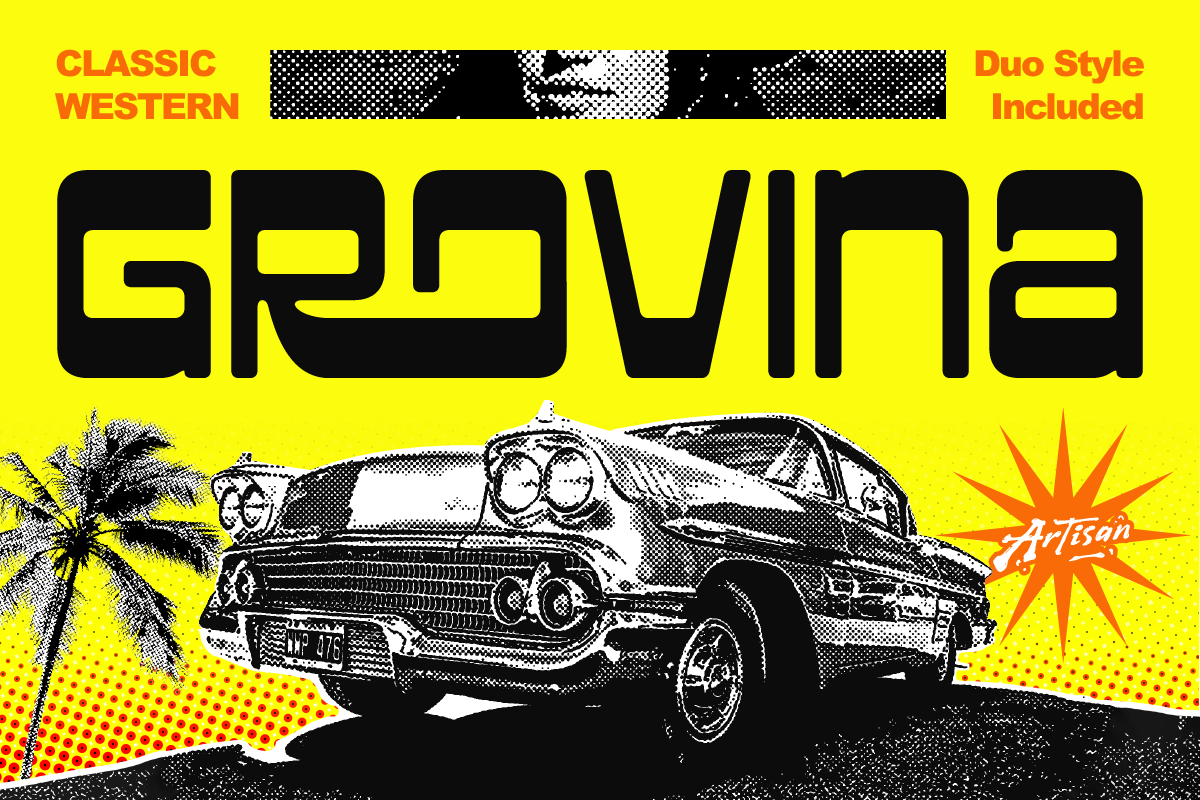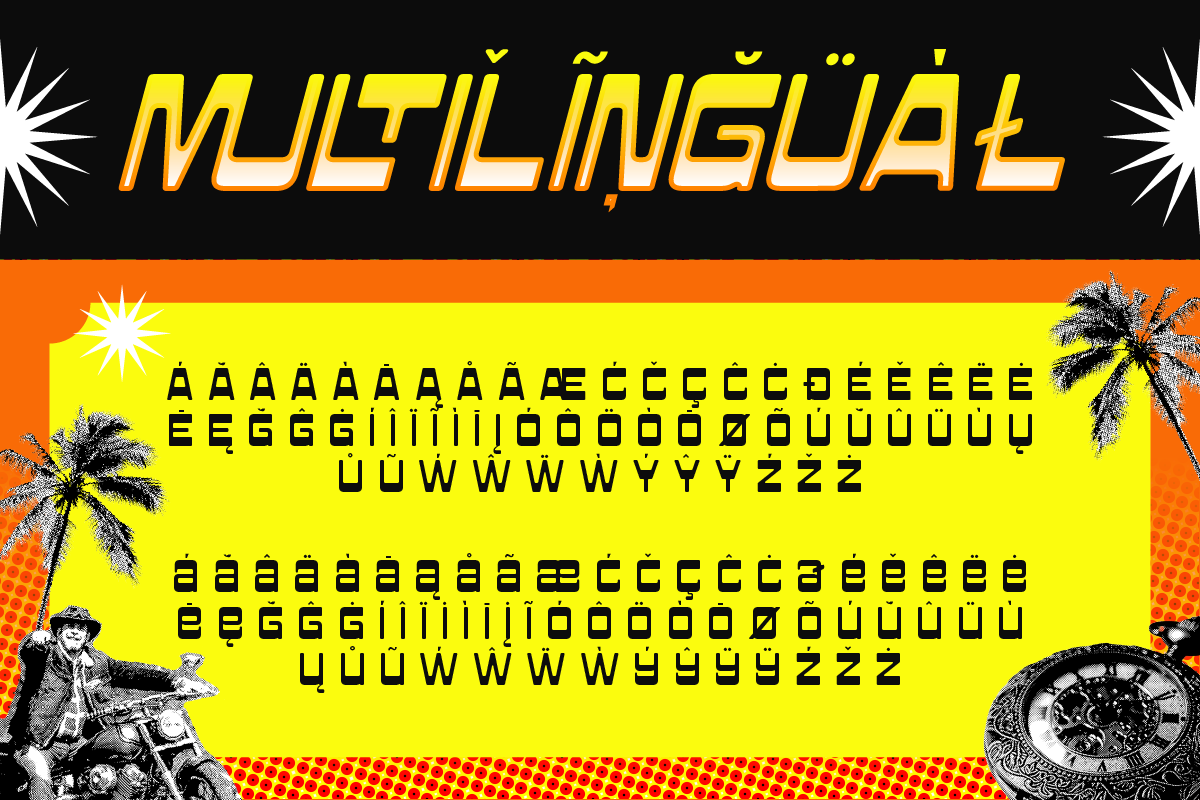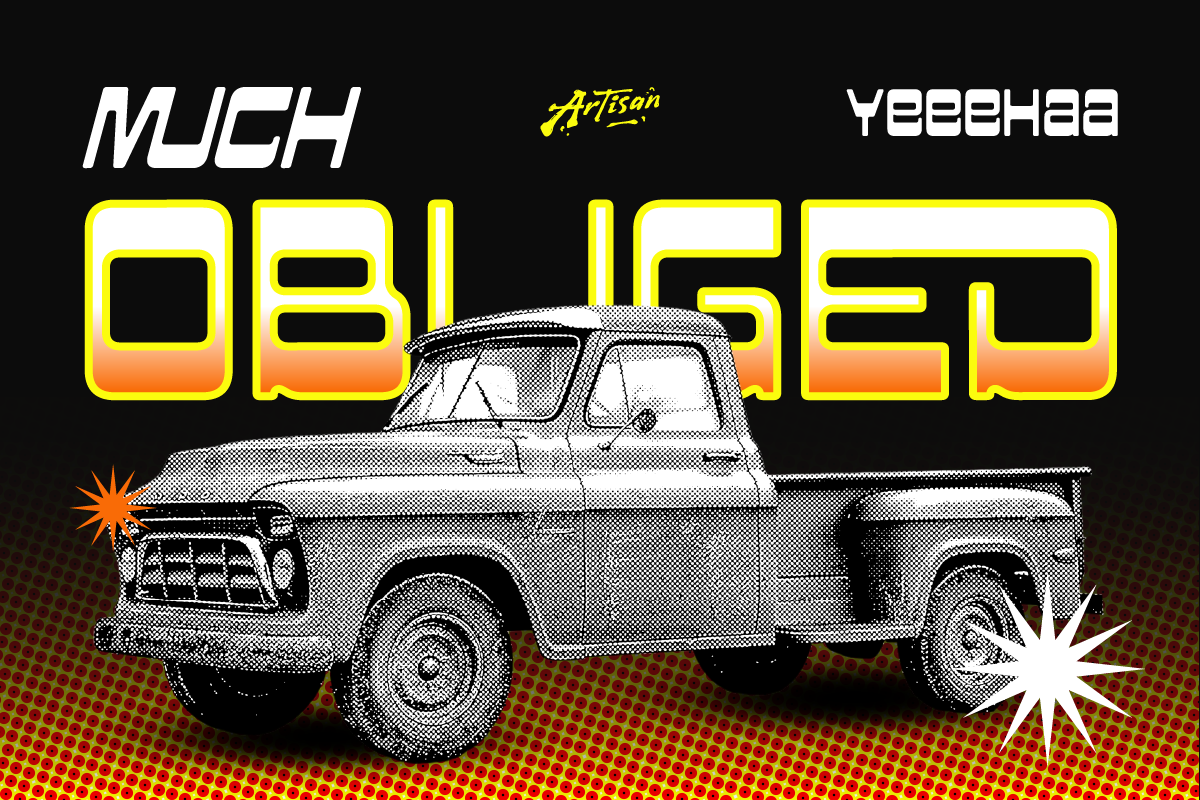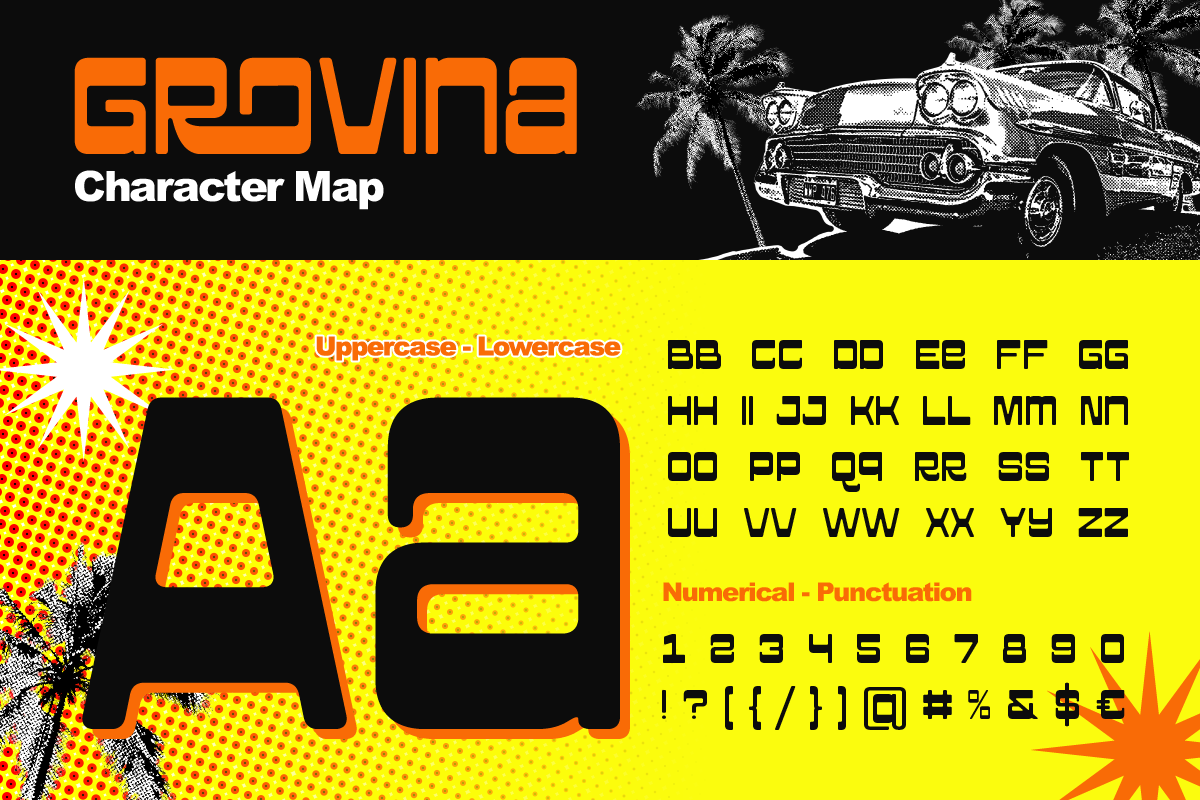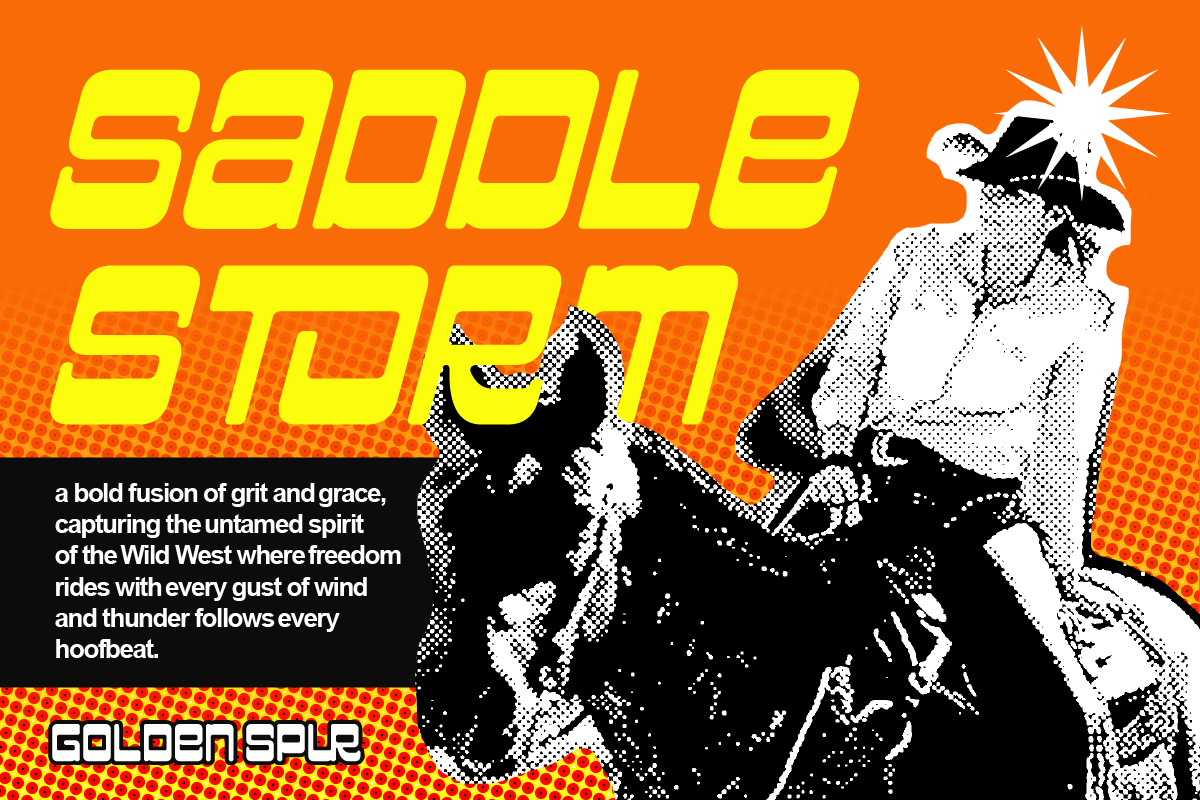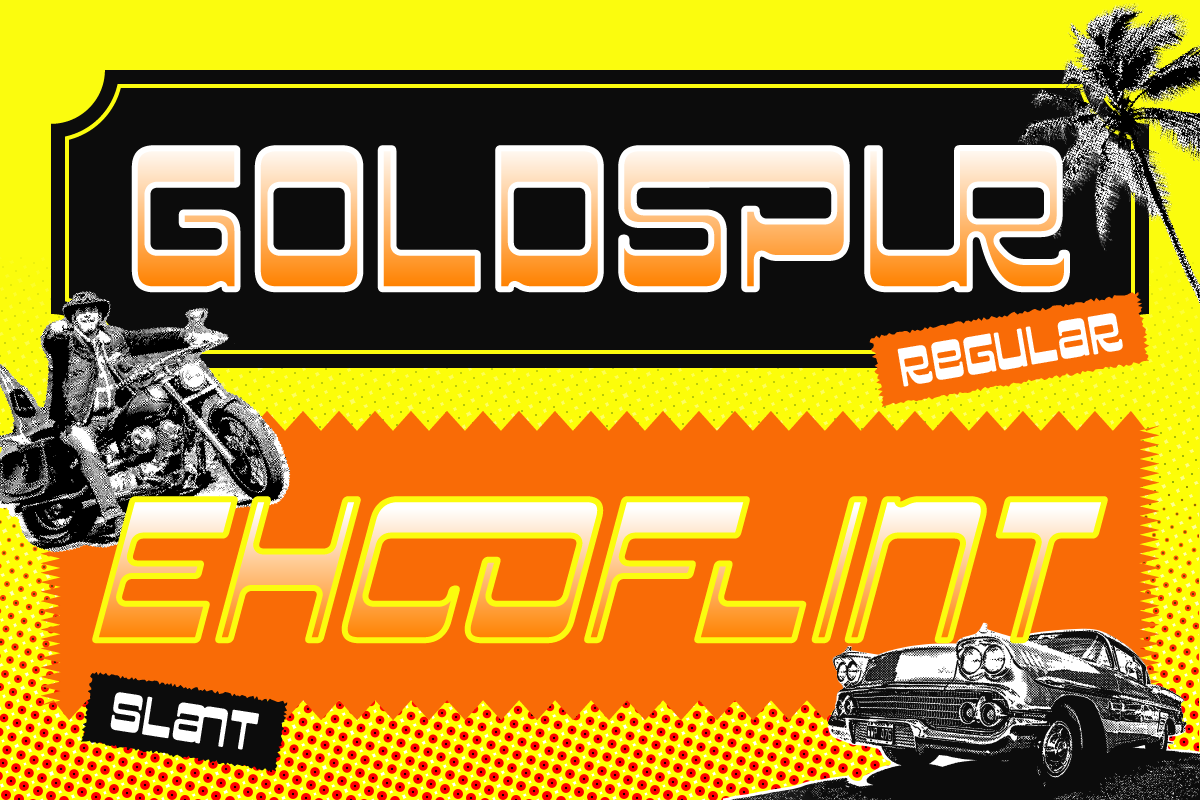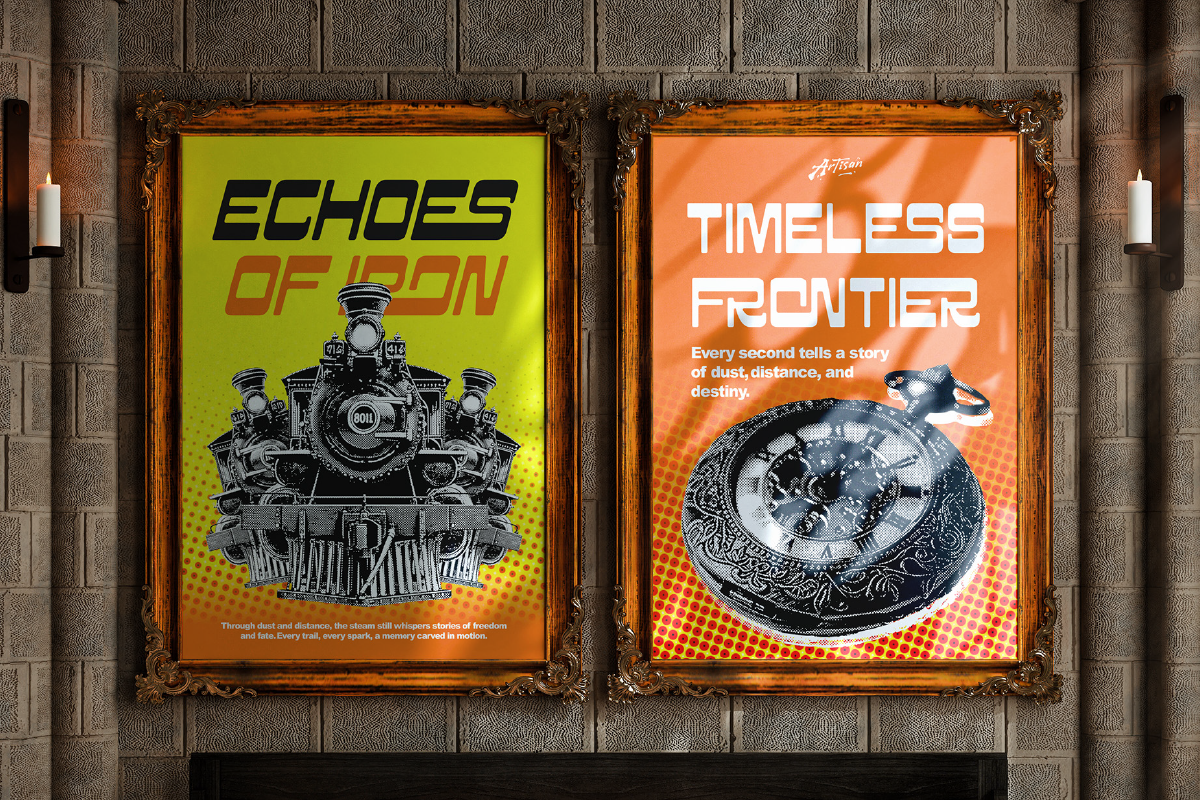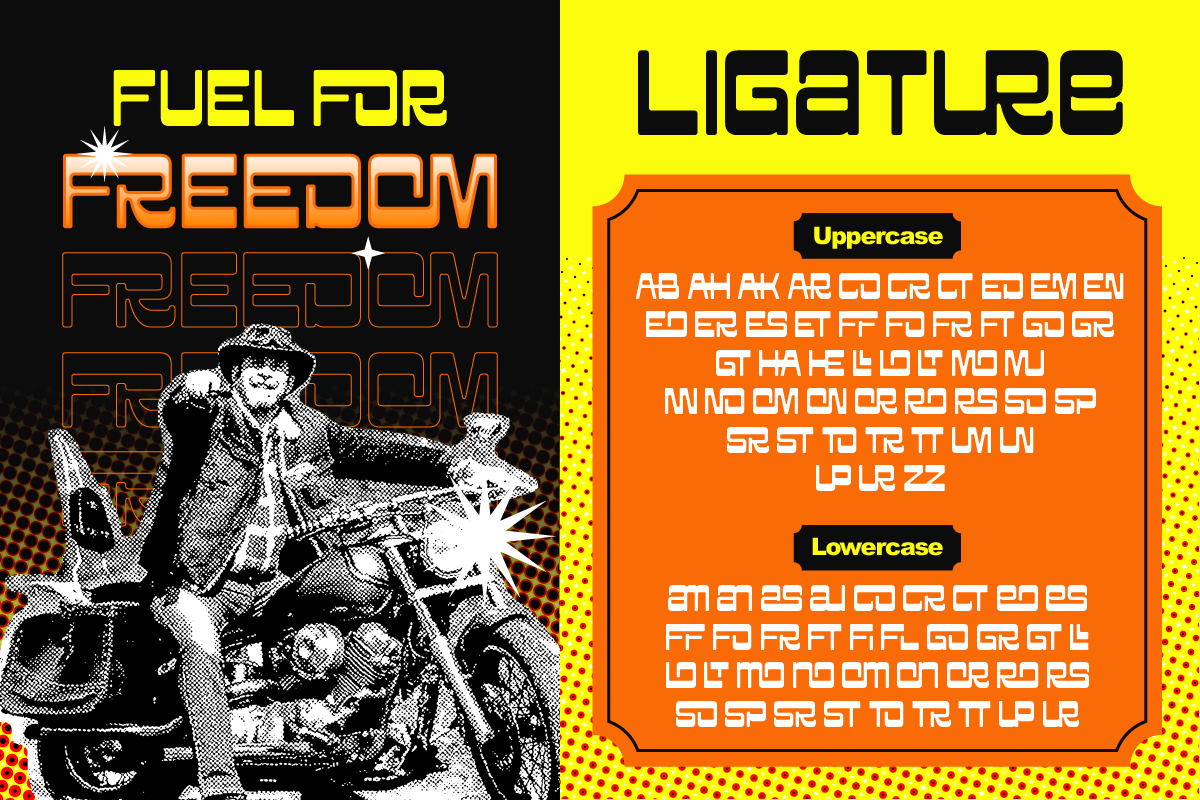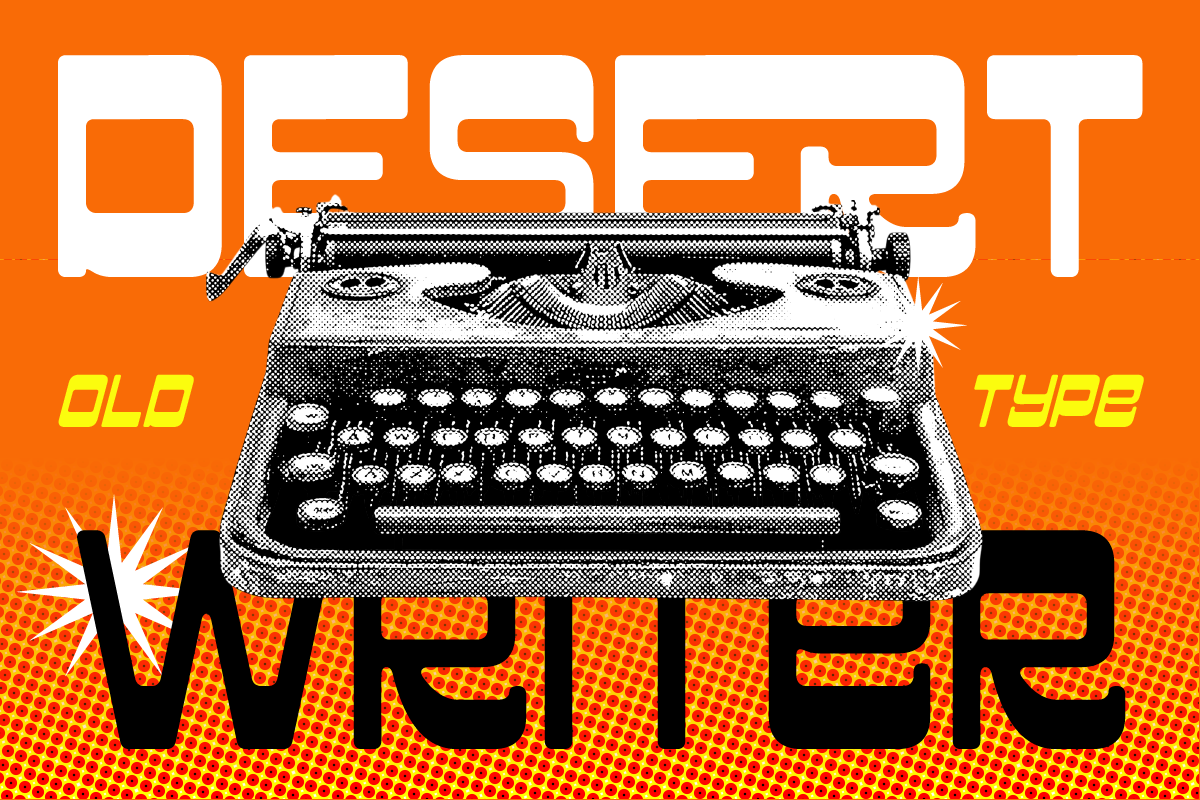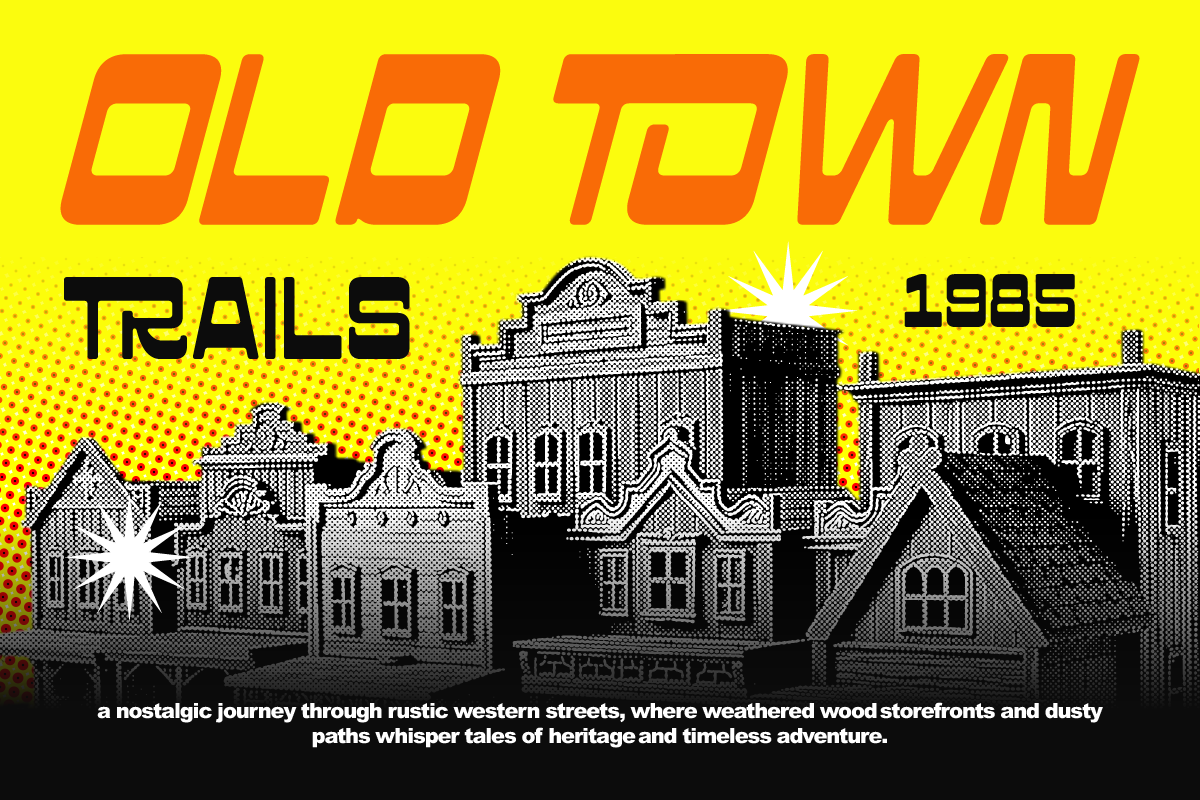
Grovina
REGULAR
SLANT
Grovina is a bold retro typeface built for speed and style. Inspired by vintage car emblems, biker jackets, and old western movie posters, this font brings that gritty-but-cool attitude to your design.
With two styles – Regular and Slant – Grovina rides smoothly between classic and modern. Perfect for logo designs, posters, vintage labels, or anything that needs a little horsepower and rebel energy.
Rev up your creativity and let Grovina take you on a wild ride through retro streets and neon nights.
• Retro & vintage logo design
• Automotive branding (car, motorcycle, garage)
• Biker & streetwear apparel
• Poster & flyer with bold attitude
• Classic diner or café branding
• Western-themed projects
• Racing & speed-inspired visuals
• Packaging with vintage vibes
• YouTube thumbnails & social media graphics
• Signage & headline typography
• A – Z set (Uppercase & Lowercase)
• Number
• Ligatures
• Punctuation
• Multilingual